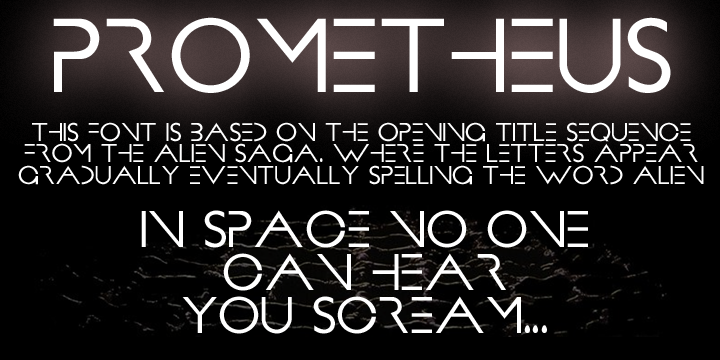
Font name: | Prometheus |
Author: | SpideRaYsfoNtS |
Note by SpideRaYsfoNtS | |
Since I was a teenager and the ALIEN egg hatched into a face hugger in the first movie I was hooked, I can't wait to see what happens in the prequel, I saw one of the posters today and was hooked on the font that was used I couldn't find it anywhere so here is the initial release of my latest fan-font. For the fully kerned OTF embeddable commercial version of this font please visit my Etsy Store @ http://etsy.me/2ecGY5S |